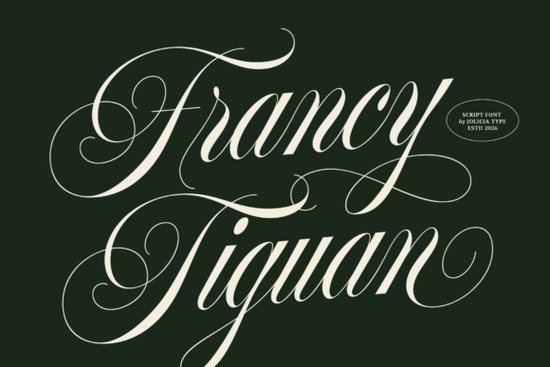
If you've been searching for a script font that feels both elegant and modern, the Francy Tiguan Font is worth a close look. It blends classic calligraphy styling with a polished, luxury feel the kind of typeface that looks right at home on wedding stationery, beauty branding, and high-end packaging. Whether you're a designer building a mood board or a small business owner refreshing your visual identity, this font brings a romantic, handcrafted quality without looking messy or informal.
What Makes Francy Tiguan Different from Other Script Fonts?
Plenty of script fonts claim to be elegant, but many end up looking either too formal or too casual. Francy Tiguan sits in a sweet spot. Its letterforms have flowing swashes and graceful curves that give each word a sense of movement, but the overall structure stays clean and readable. That balance is important especially when you're using the font for logos or headlines where clarity matters just as much as style.
Compared to something like a softer handwritten script, Francy Tiguan leans more toward sophistication. And next to purely formal calligraphy fonts, it feels warmer and more personal. That versatility is what makes it useful across so many different projects.
Where Does This Font Work Best?
Based on its design and character set, here are the types of projects where Francy Tiguan tends to shine:
- Wedding invitations and event stationery The romantic curves and elegant swashes pair beautifully with floral designs and soft color palettes.
- Feminine logo design Ideal for boutique brands, beauty studios, and lifestyle businesses that want a refined handwritten look.
- Fashion and beauty packaging Think product labels, box designs, and cosmetic branding where a luxurious touch is needed.
- Social media graphics Quotes, sale announcements, and Instagram stories benefit from a font that feels personal yet polished.
- Editorial and print layouts Magazine headers, blog graphics, and lookbooks can use it for pull quotes or title treatments.
For wedding-themed projects specifically, you might also want to explore fonts designed with bridal aesthetics in mind pairing them with Francy Tiguan can create beautiful typographic combinations.
Who Is This Font a Good Fit For?
Print-on-demand sellers can use Francy Tiguan for mug designs, tote bags, and poster quotes that appeal to a feminine, style-conscious audience. Small business owners in the beauty, fashion, or wellness space can apply it to business cards, thank-you cards, and brand collateral. And crafters and hobbyists who design invitations, scrapbook pages, or party decor will find it fits naturally into romantic and elegant themes.
Tips for Getting the Most Out of Francy Tiguan
Script fonts can be tricky to work with if you're not used to them. Here are a few practical tips:
- Watch your spacing. Because Francy Tiguan has decorative swashes, you may need to adjust letter spacing depending on the size and medium. Test it at the actual output size before finalizing.
- Pair it with a clean sans-serif. A simple, modern sans-serif works well as a companion font for body text. This keeps your layout balanced and readable.
- Use it for headlines and accents, not long paragraphs. Like most script typefaces, it's designed for display use. Set your key words and short phrases in Francy Tiguan, then use a simpler font for everything else.
Final Thoughts
Francy Tiguan is a well-crafted script font that delivers a luxurious, romantic aesthetic without feeling overdone. It works across wedding design, branding, packaging, and social media anywhere you want to add a touch of handwritten elegance. If your creative work leans toward the feminine and refined side, it's a solid addition to your toolkit.